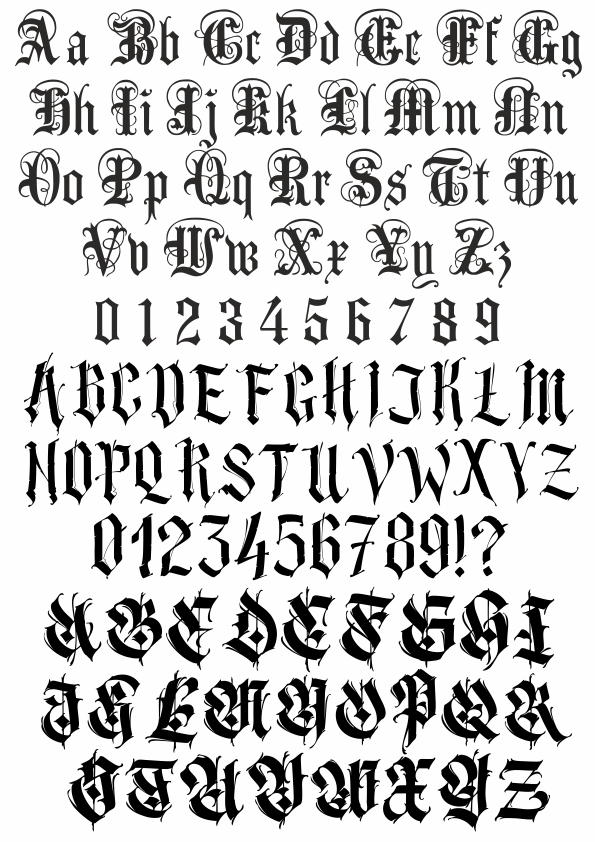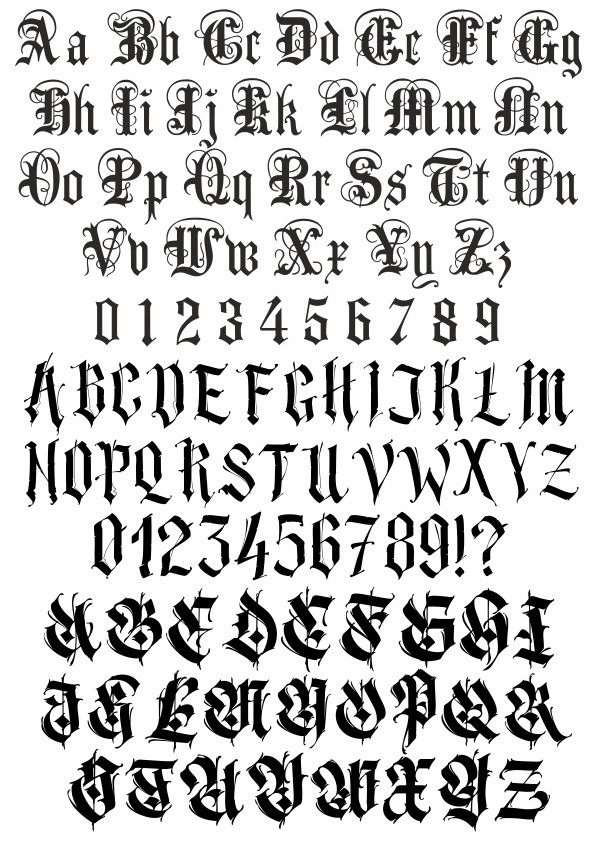
Decorative Blackletter and Gothic Font Alphabets with Numerals Free Vector
Vector collection of blackletter and gothic style alphabets featuring decorative uppercase and lowercase letters along with matching numerals. Ideal for vintage, medieval, or calligraphy design projects.